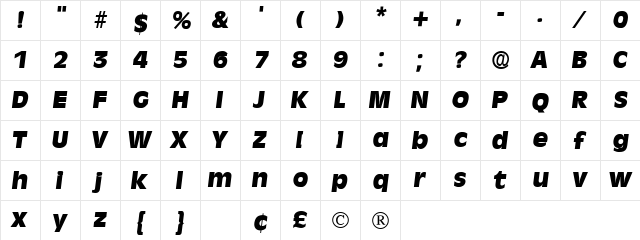
Misce Display SSi Italic
Design Context for Misce Display SSi Typeface
Misce Display SSi is built around its visual character rather than neutral utility — its distinctive forms are designed to make an impression at display sizes. The slanted form adds forward momentum and visual energy.
Font Pairing: Pair with a clean neutral sans-serif for body copy to let Misce Display SSi's character lead without overwhelming the composition.
Pro Tip: Treat Misce Display SSi as the centrepiece of your typographic hierarchy. One strong heading set in a decorative face can carry an entire layout.